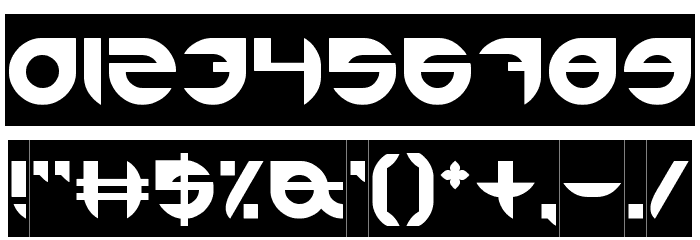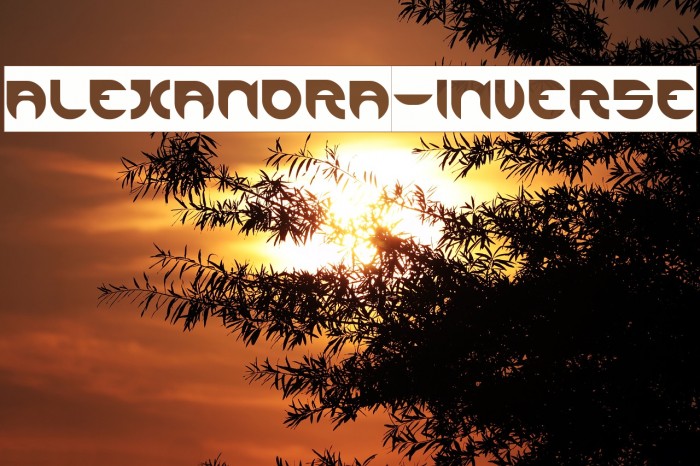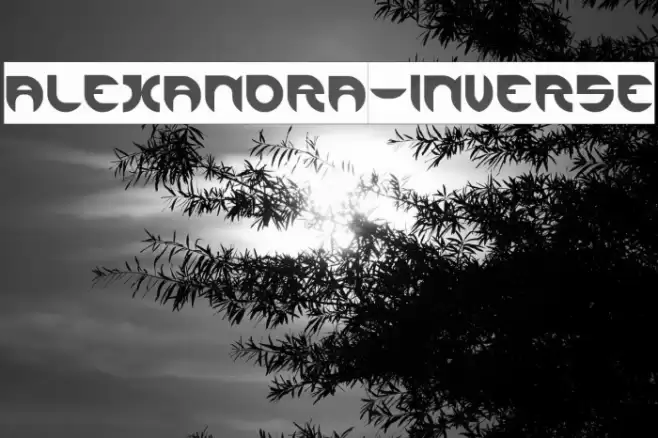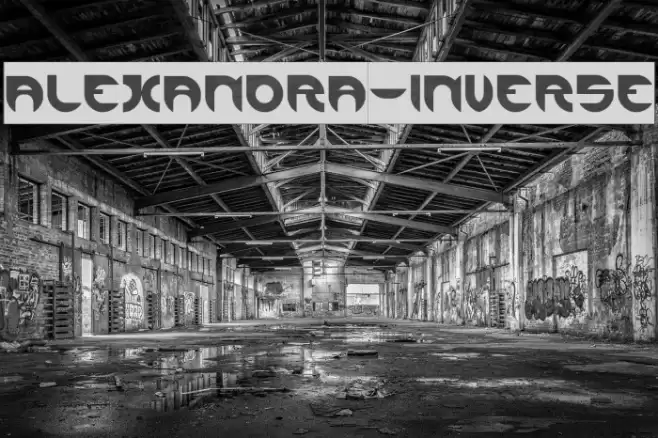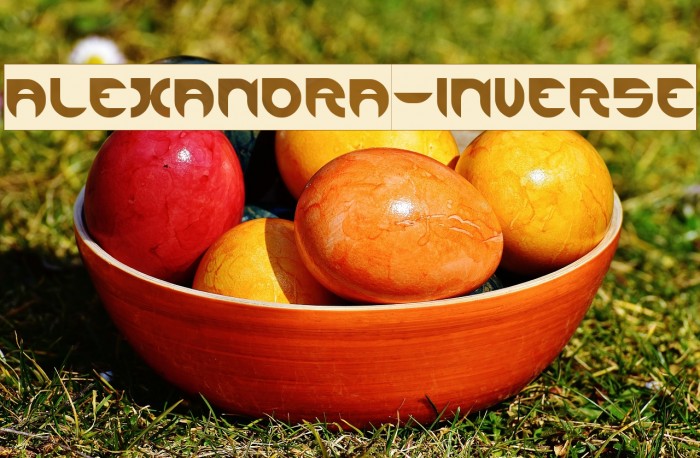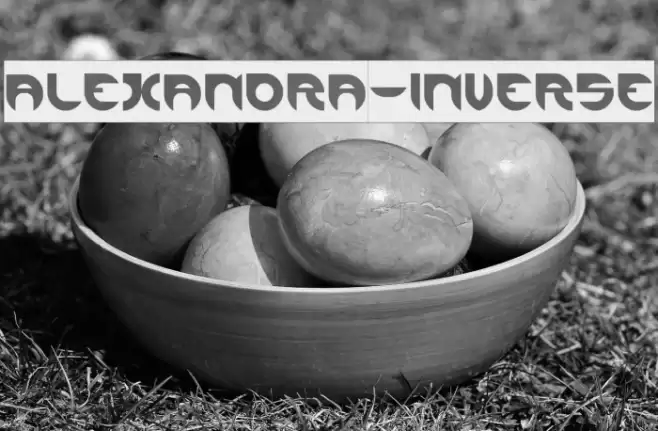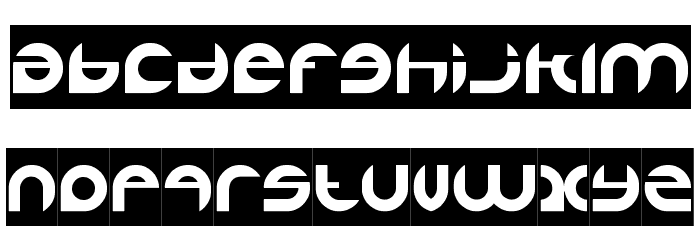
ALEXANDRA-INVERSE Font
ALEXANDRA-INVERSE Description
This font features a bold and futuristic design with geometric shapes and sharp angles. The characters are crafted with a unique blend of curves and straight lines, creating a sense of movement and modernity. The uppercase and lowercase letters maintain a consistent style, with the lowercase offering a slightly more rounded appearance. Numbers and special characters follow the same design principles, ensuring uniformity across all elements. The font's distinct style makes it stand out, ideal for projects that require a modern and edgy aesthetic.
| Proposed Projects | Ideal for sci-fi themed designs, technology branding, modern posters, and innovative product packaging. |